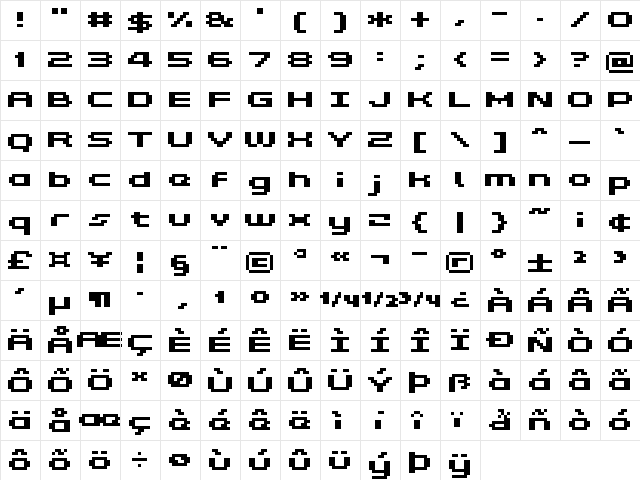
Grixel Kyrou 5 Wide Bold Xtnd Regular
Design Context for Grixel Kyrou 5 Wide Bold Xtnd Typeface
Grixel Kyrou 5 Wide Bold Xtnd takes a measured approach to typography — its balanced proportions and neutral character make it a reliable workhorse for both digital and print work. The heavy weight commands attention and anchors typographic hierarchies.